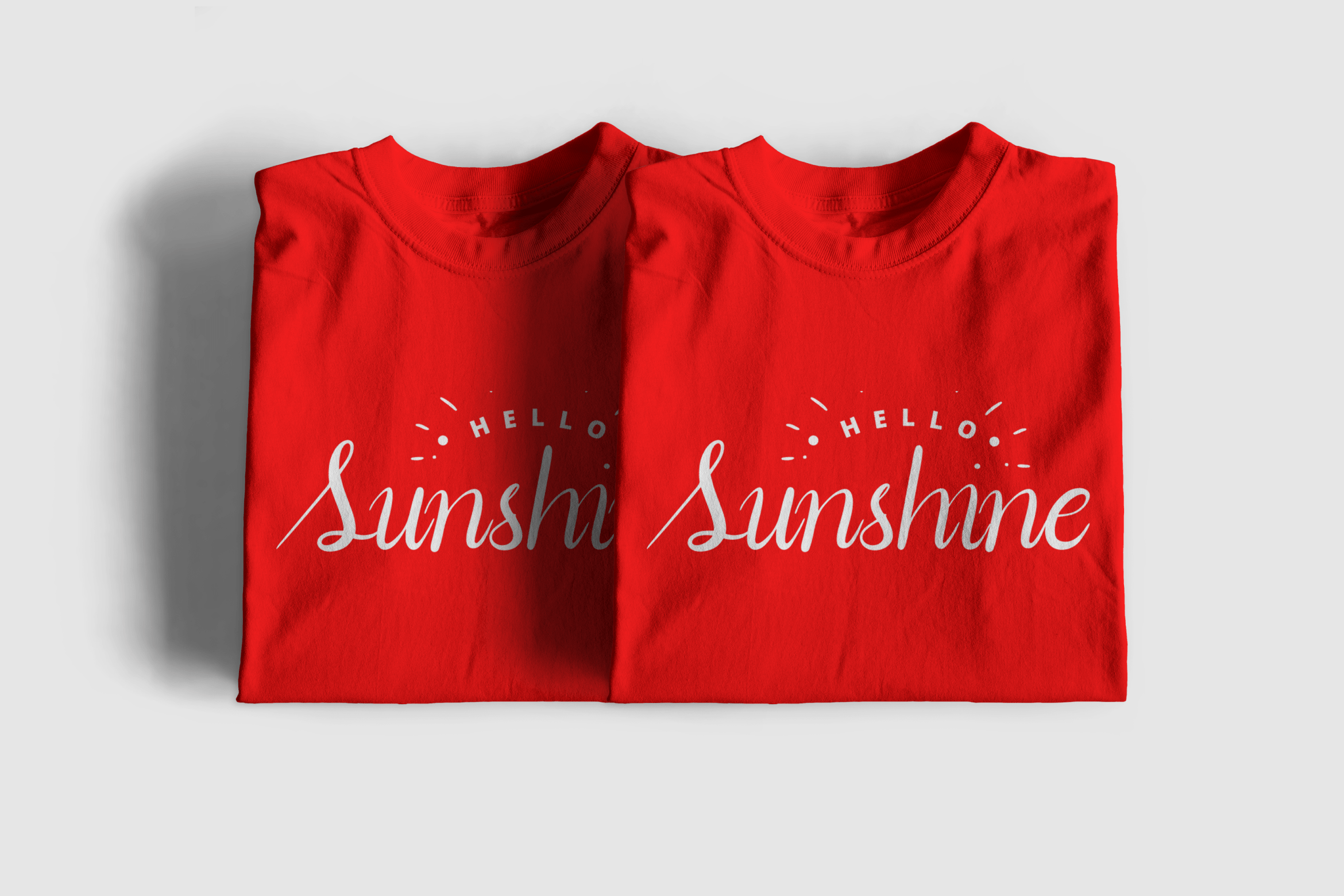
Abeely Belve Script Font
This is a Script Style Font. Abeely Belve is perfect for product packaging, branding project, megazine, social media, wedding, or just used to express words above the background.
With a very beautiful & elegant touch, perfect for your creative projects. The concept of the font is different from others to use. Enjoy our work 🙂